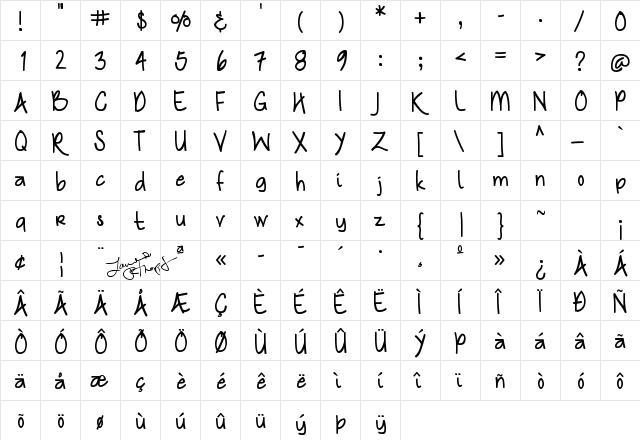
Nymph's Handwriting Regular
Design Context for Nymph's Handwriting Typeface
Nymph's Handwriting flows with the natural rhythm of handwritten lettering, making it ideal for designs that call for warmth and personal expression.
Font Pairing: Combine Nymph's Handwriting with a simple geometric sans for maximum contrast — the tension between flowing curves and clean structure is a classic typographic pairing.
Pro Tip: Pair Nymph's Handwriting with a clean sans-serif for supporting text. The contrast between fluid script and geometric structure creates an elegant typographic hierarchy.